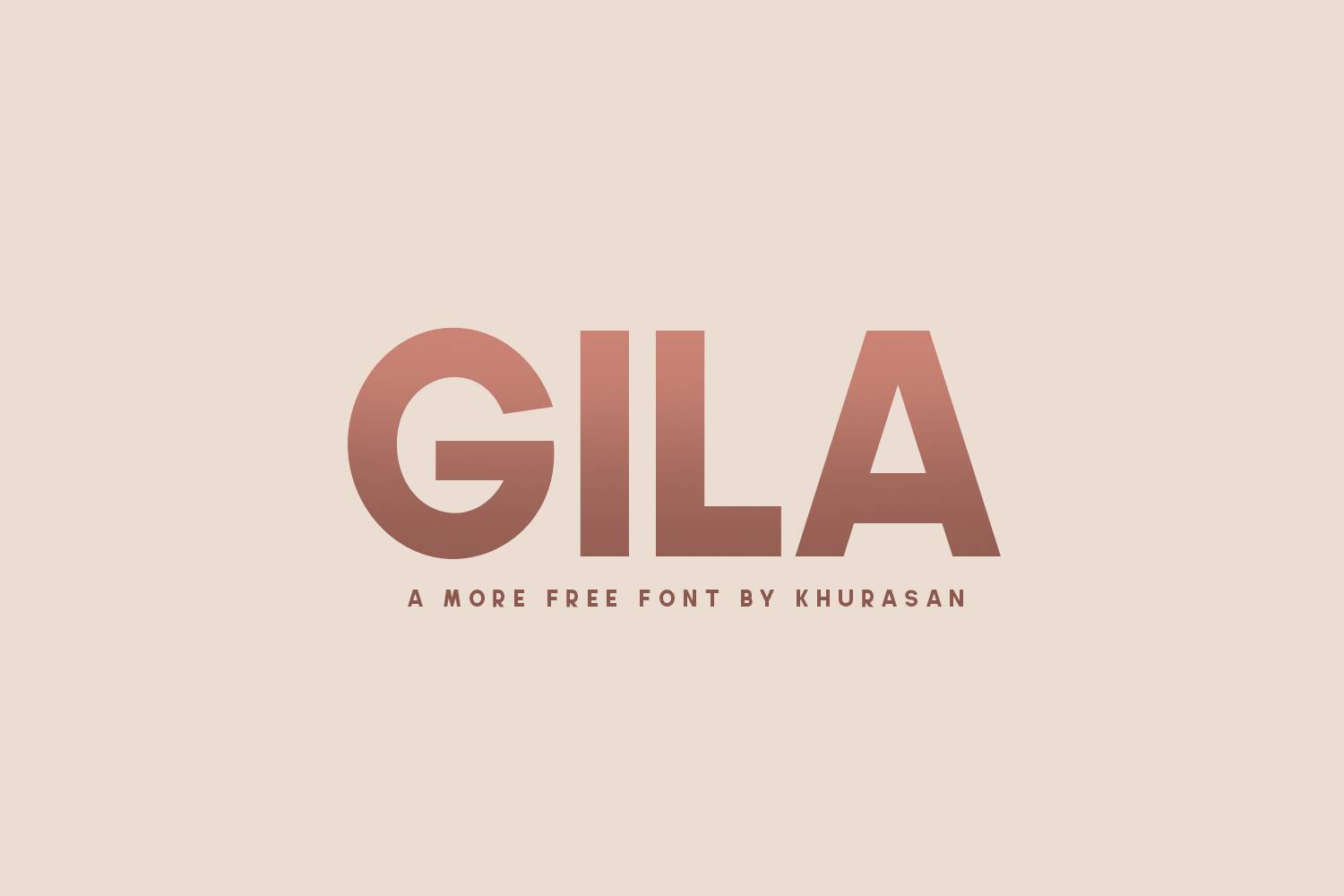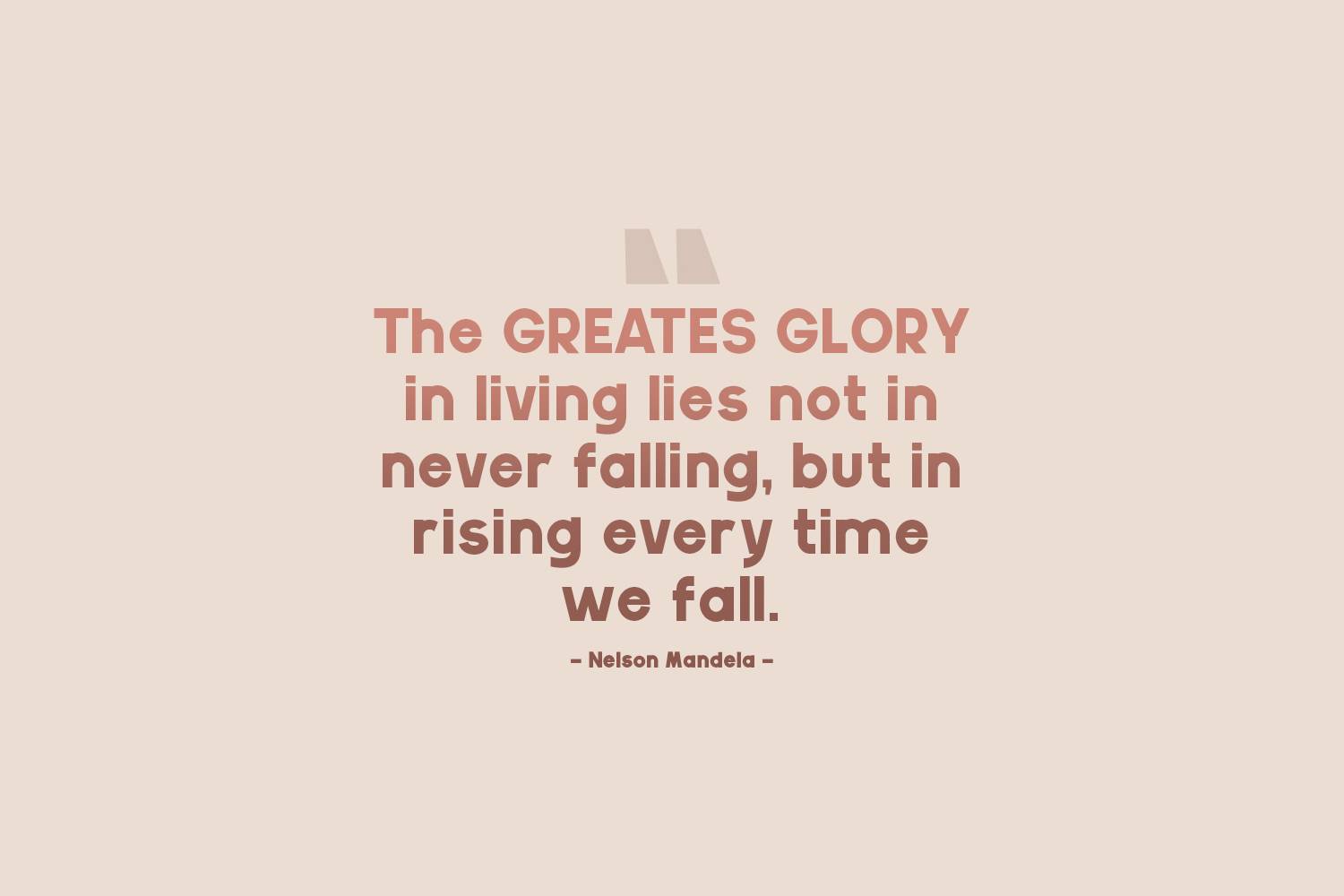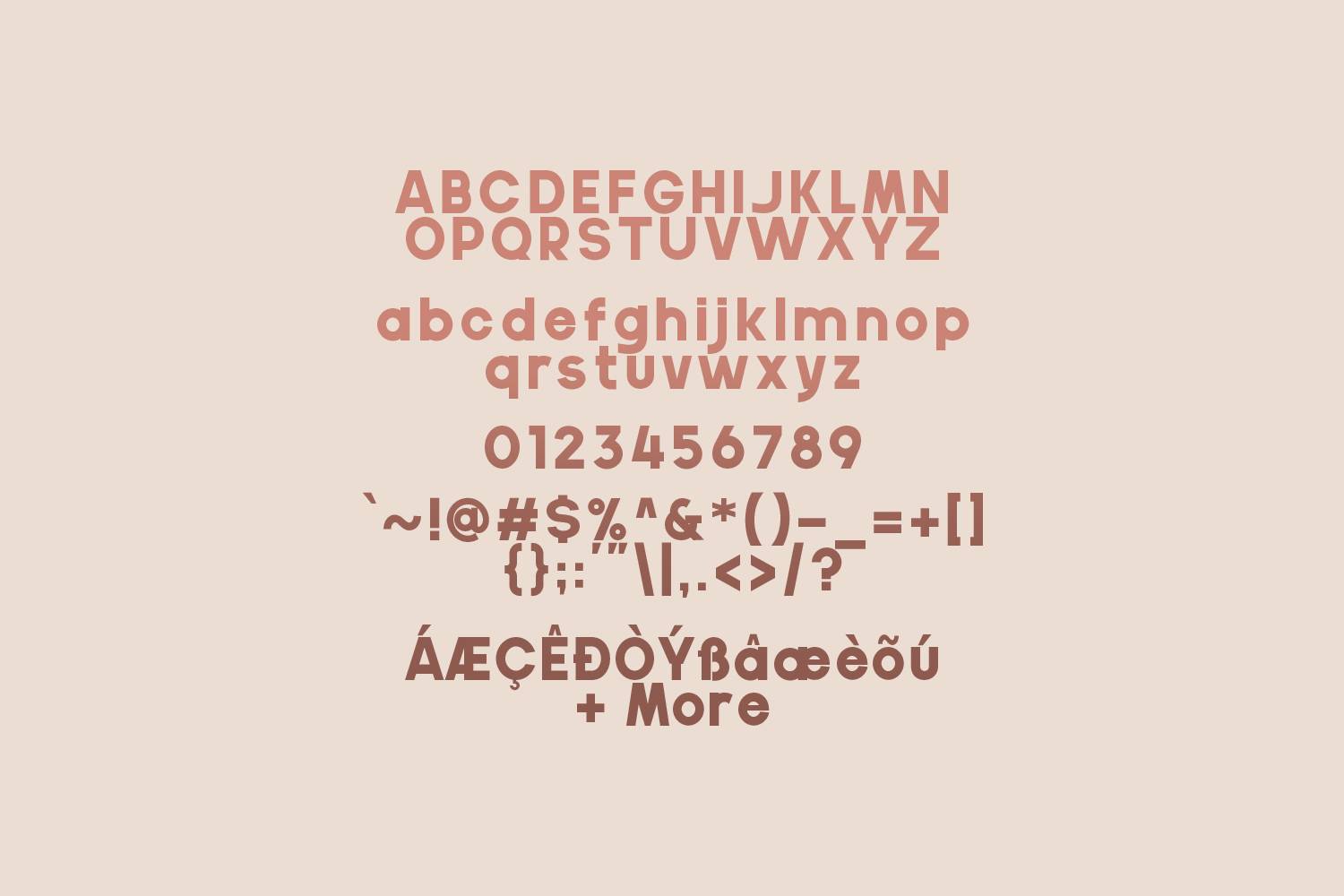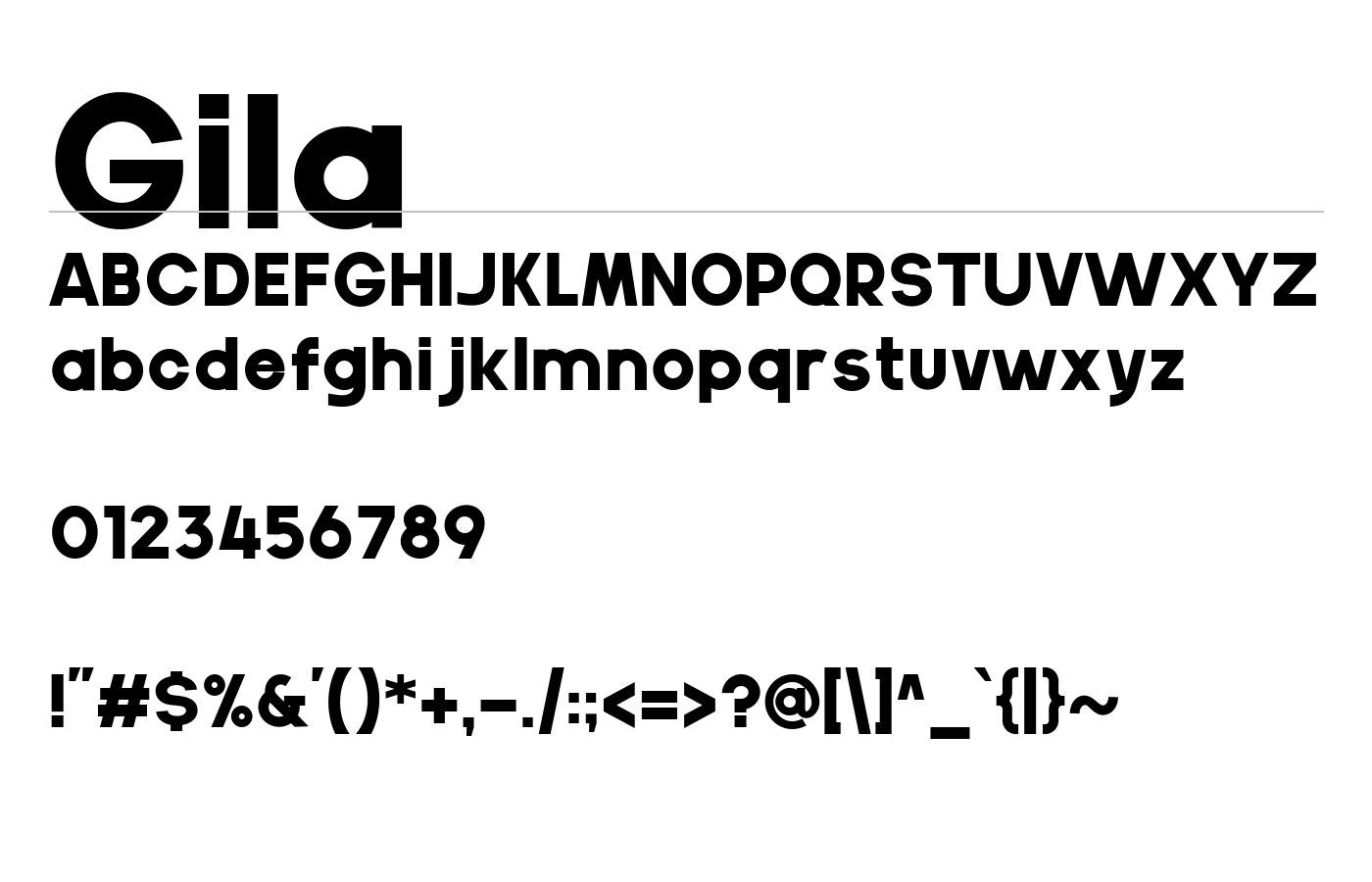
Gila is a bold, geometric sans serif font characterized by its strong weight and clean, modern shapes. Its uniform stroke contrast and large x-height give it excellent readability, making it ideal for striking headlines, branding, and editorial design that requires a confident, contemporary feel. With distinctive letterforms and tight spacing, Gila communicates a sense of modernity and professionalism while maintaining a friendly, approachable tone.
Gila Font
About Gila Font